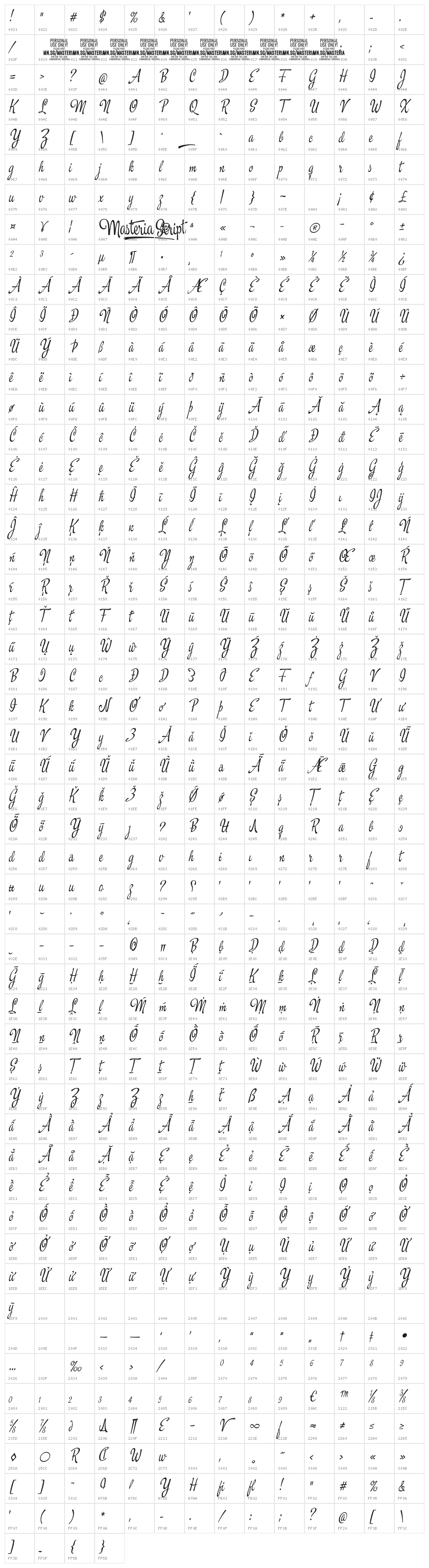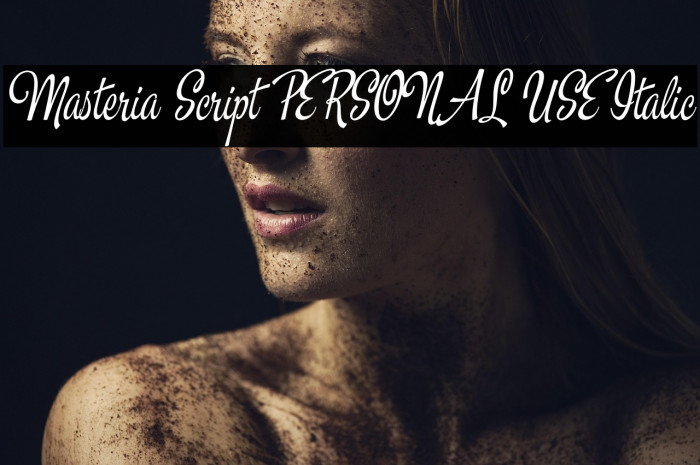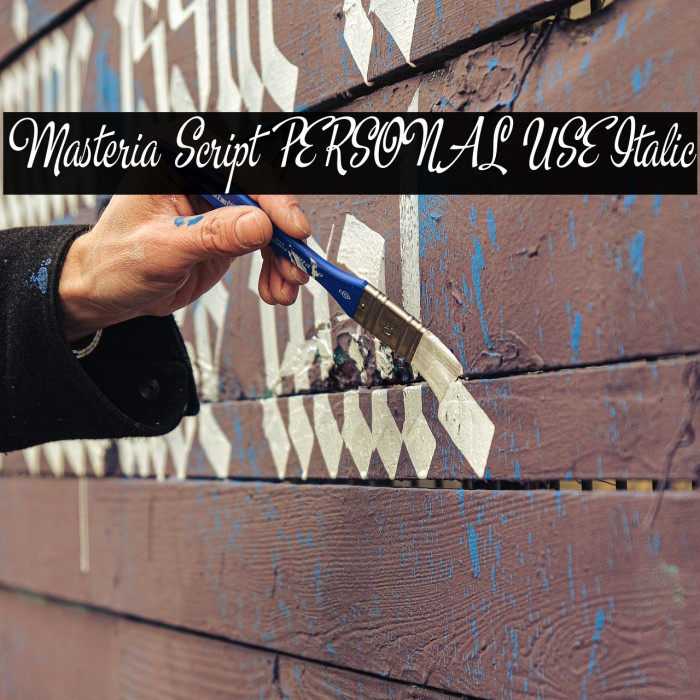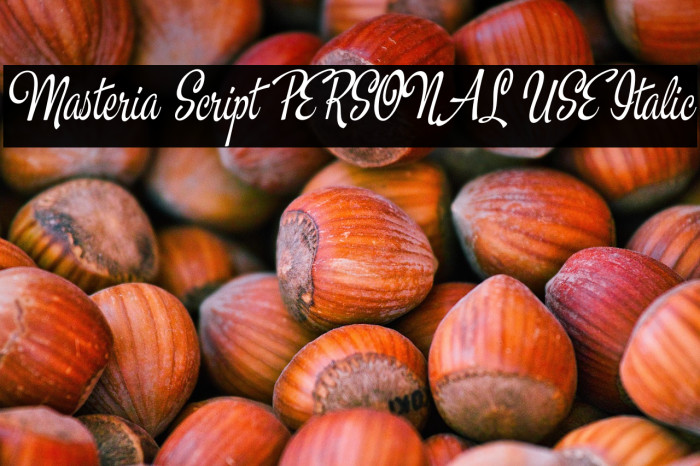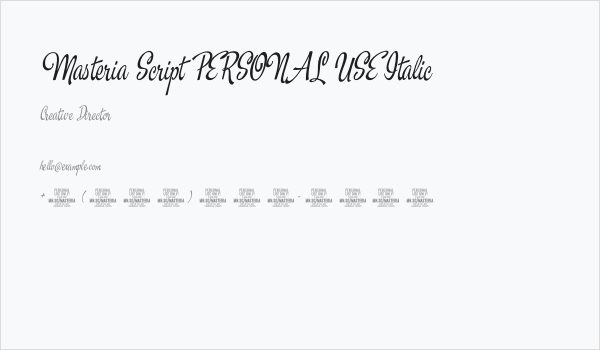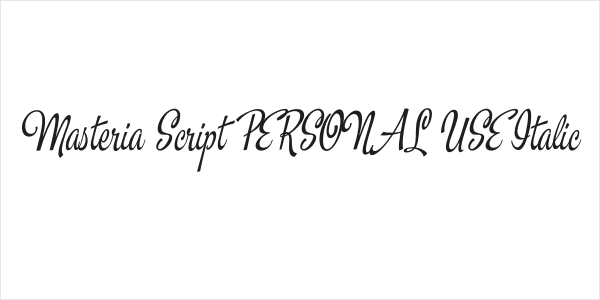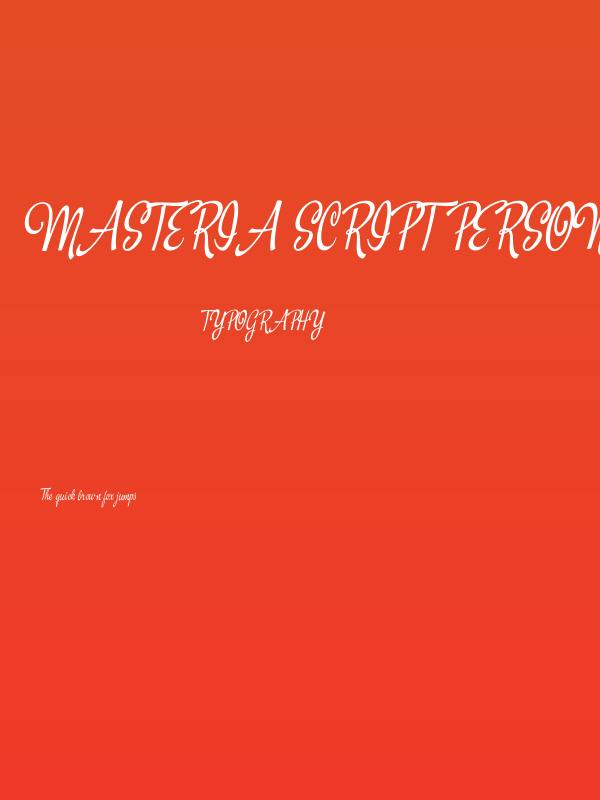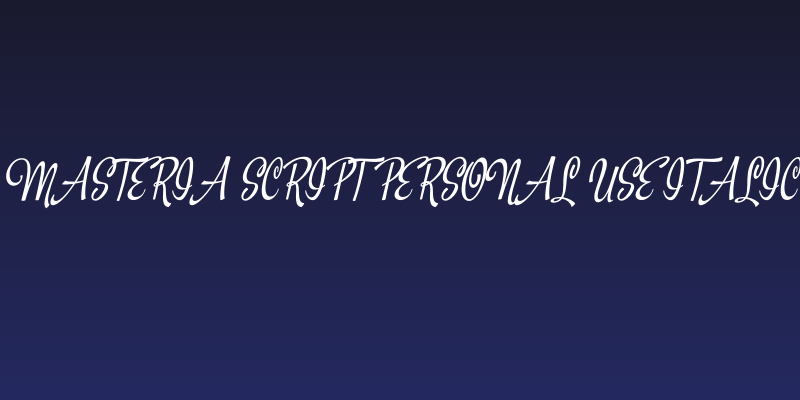
Masteria Script PERSONAL USE Italic Font
Masteria Script PERSONAL USE Italic Description
This font features an elegant and flowing script style, characterized by its smooth, cursive letterforms that exude a sense of sophistication and grace. The uppercase letters are particularly ornate, with sweeping curves and flourishes that add a touch of drama. The lowercase letters maintain a consistent flow, enhancing readability while retaining the decorative appeal. The font includes a full set of numerals and a variety of special characters, making it versatile for different design needs. Its italic nature further emphasizes the fluidity and dynamic movement of the characters, making it ideal for projects that require a touch of elegance and personality.